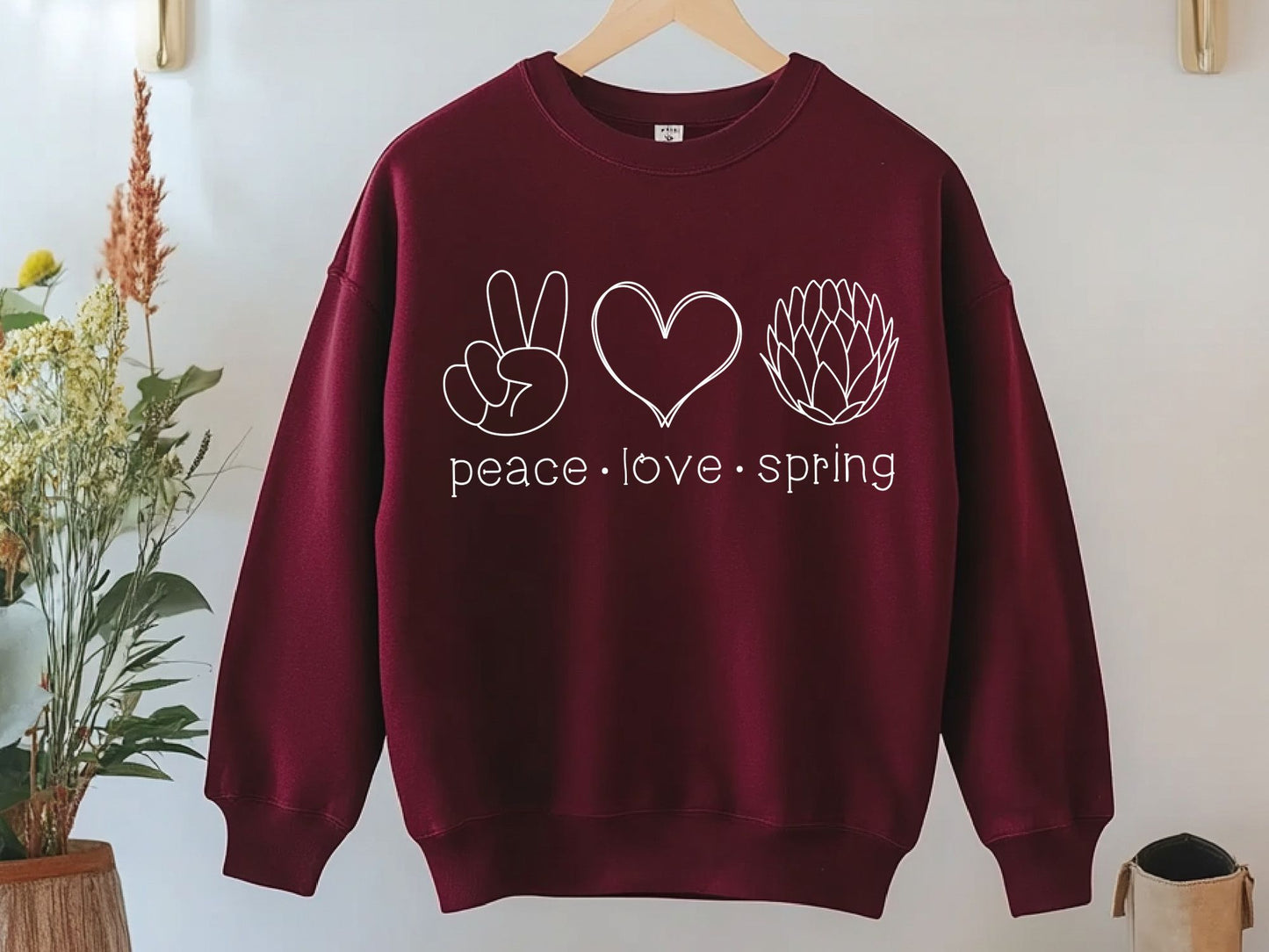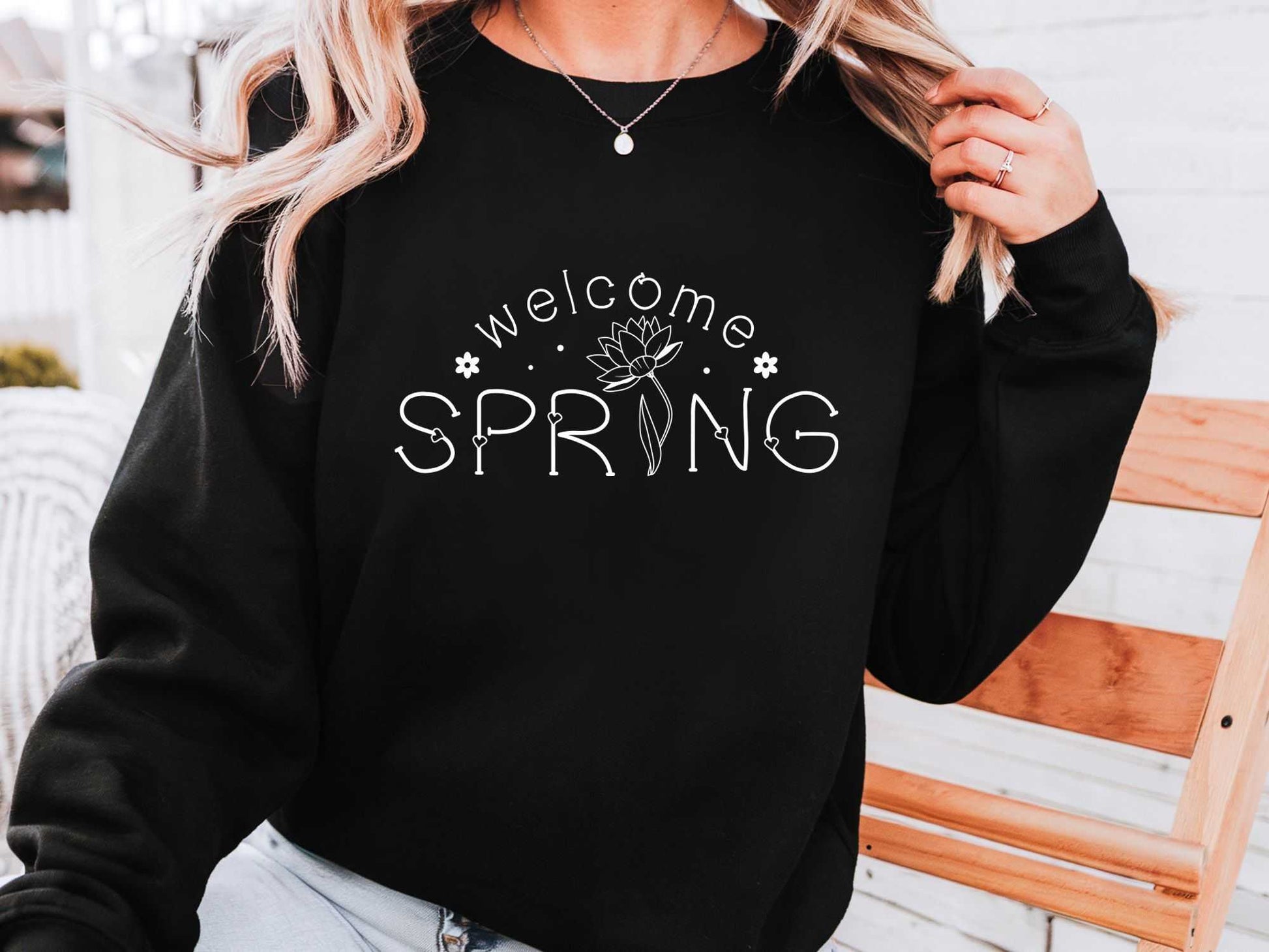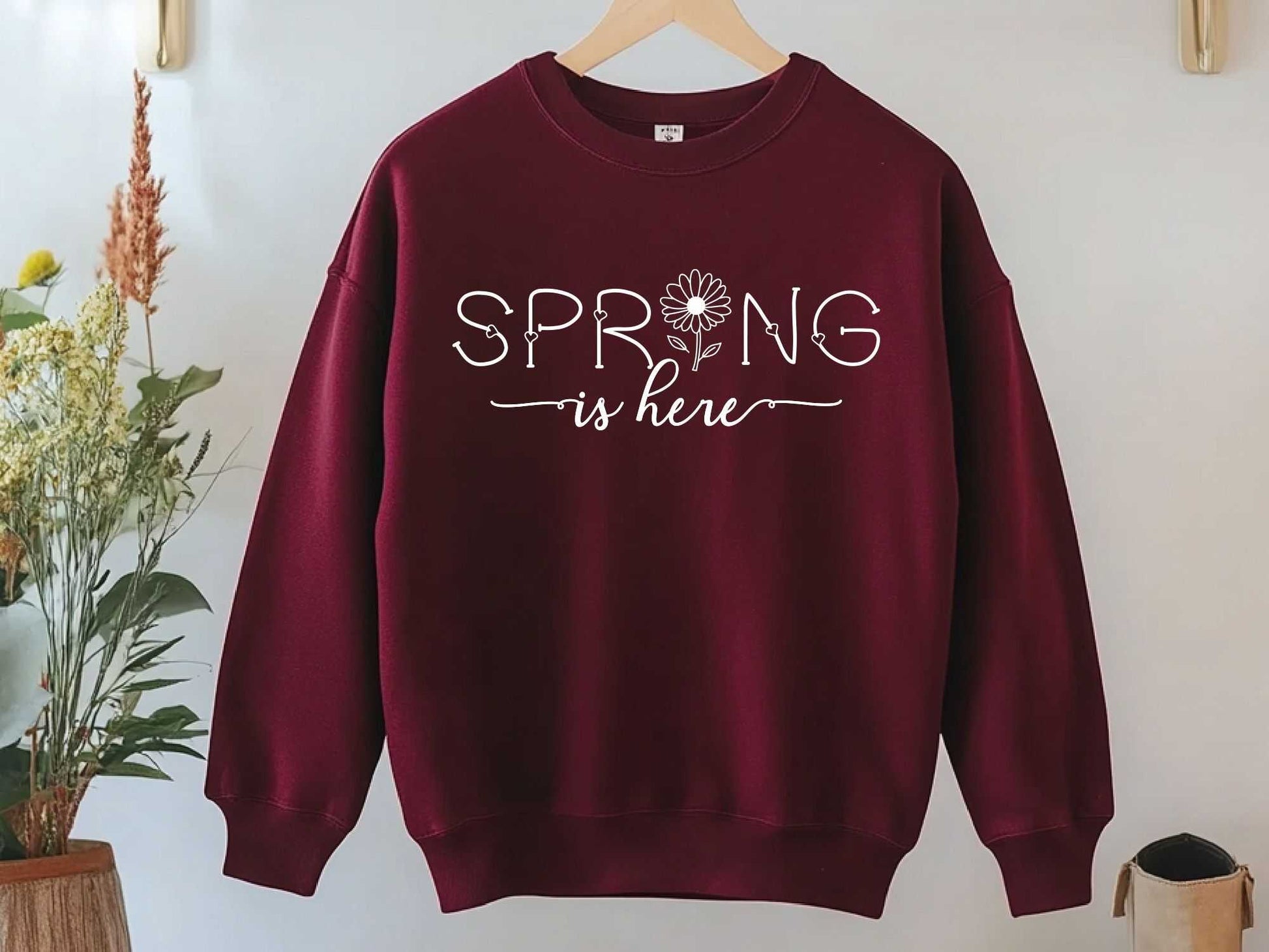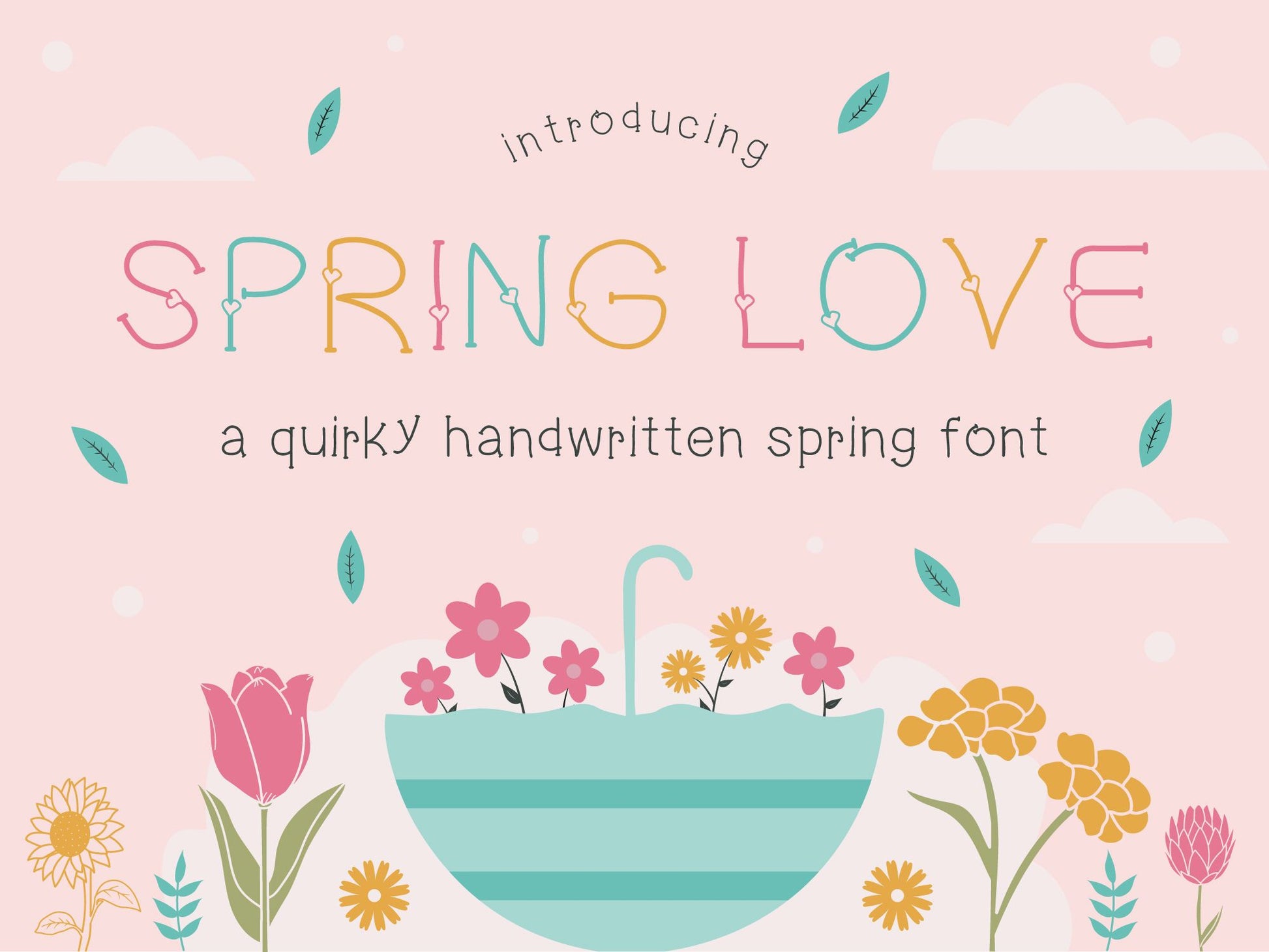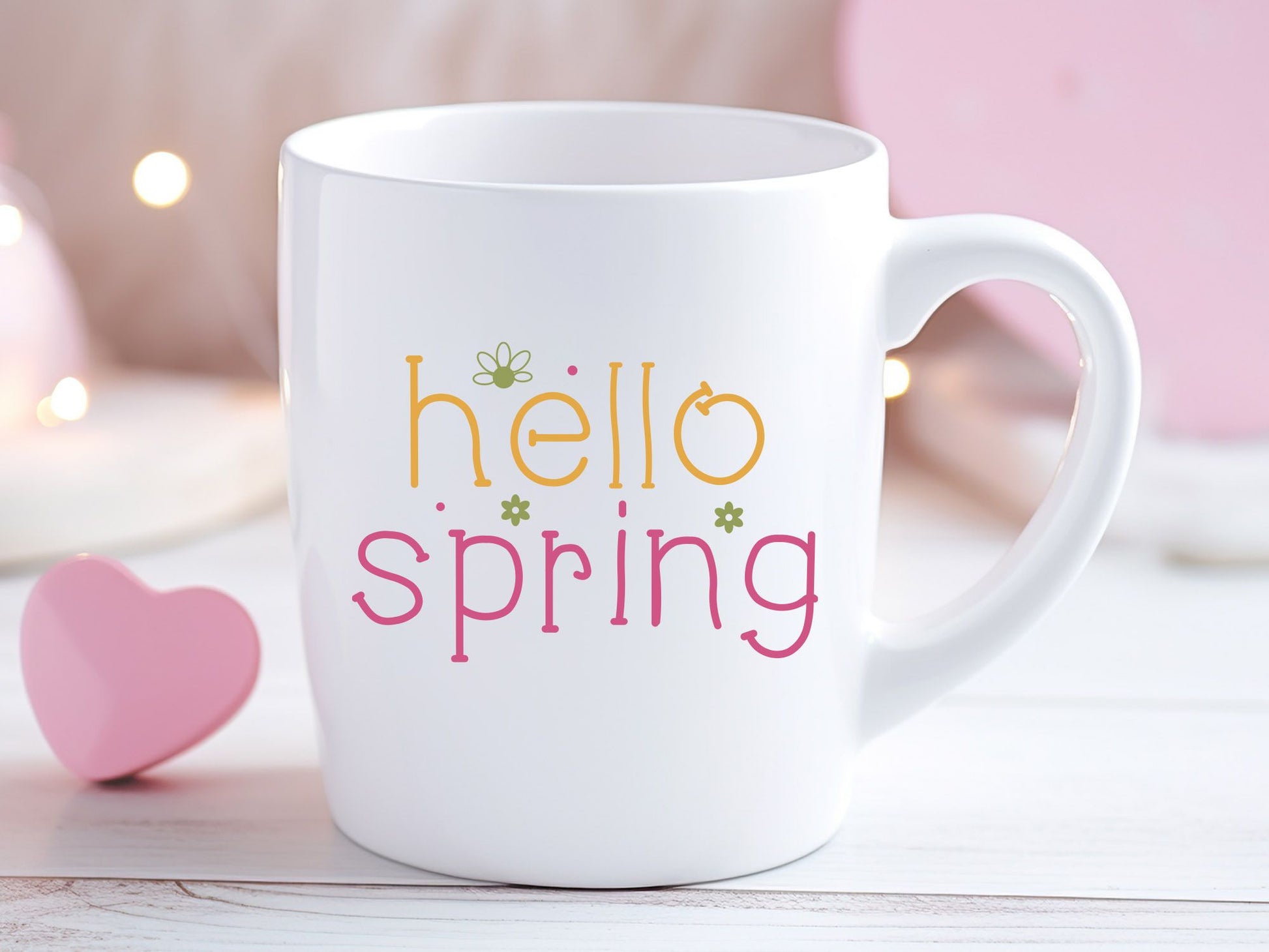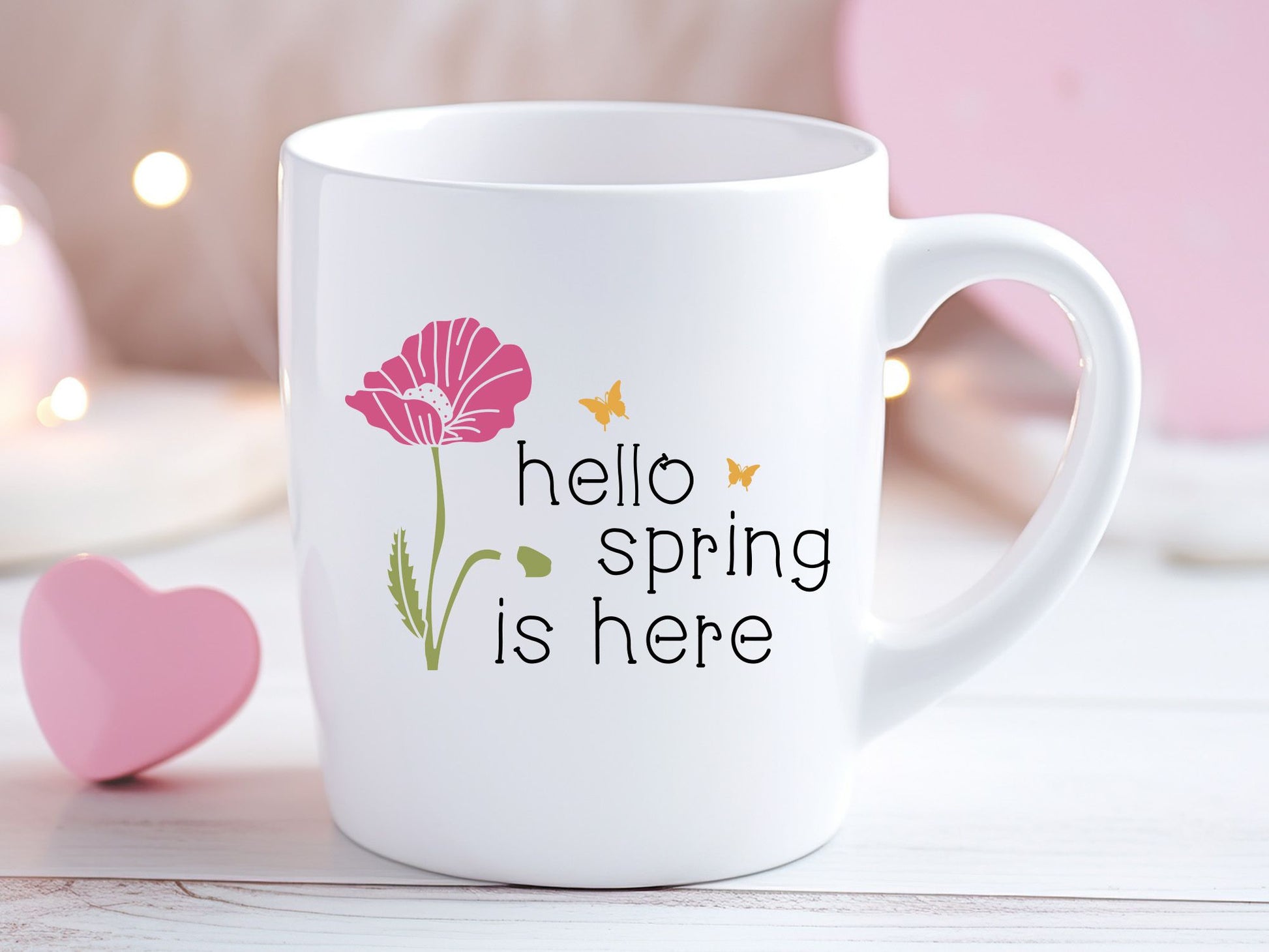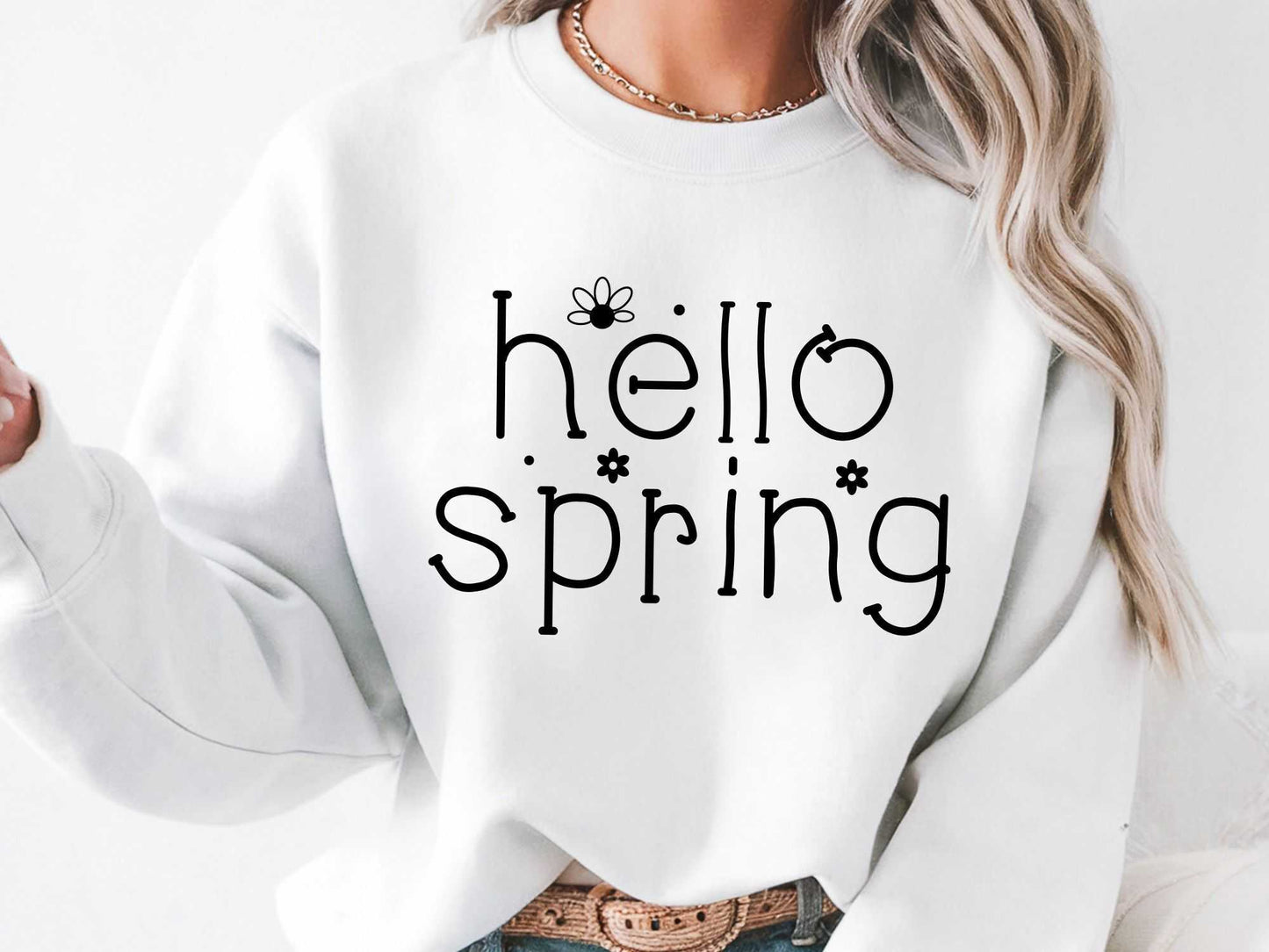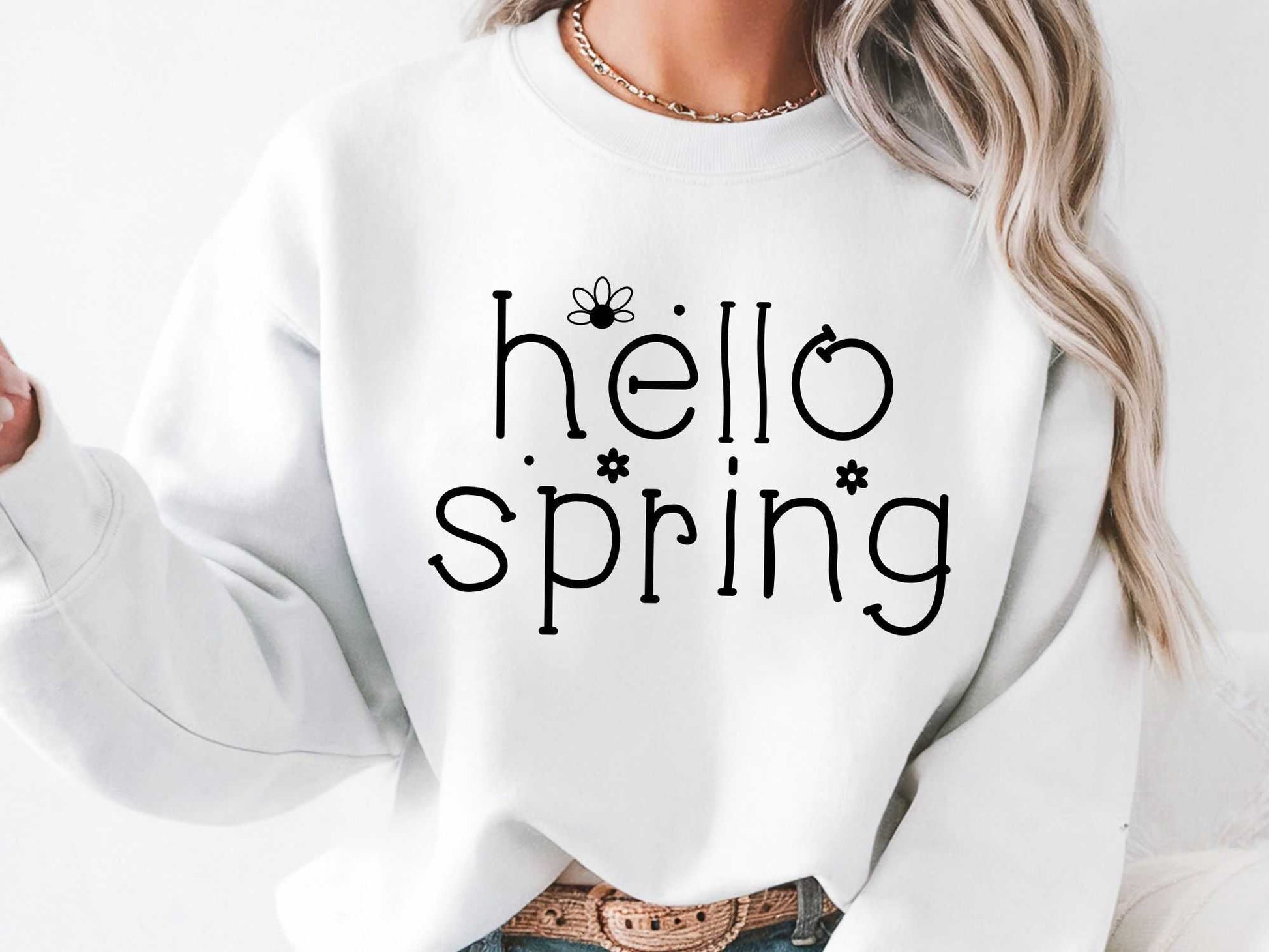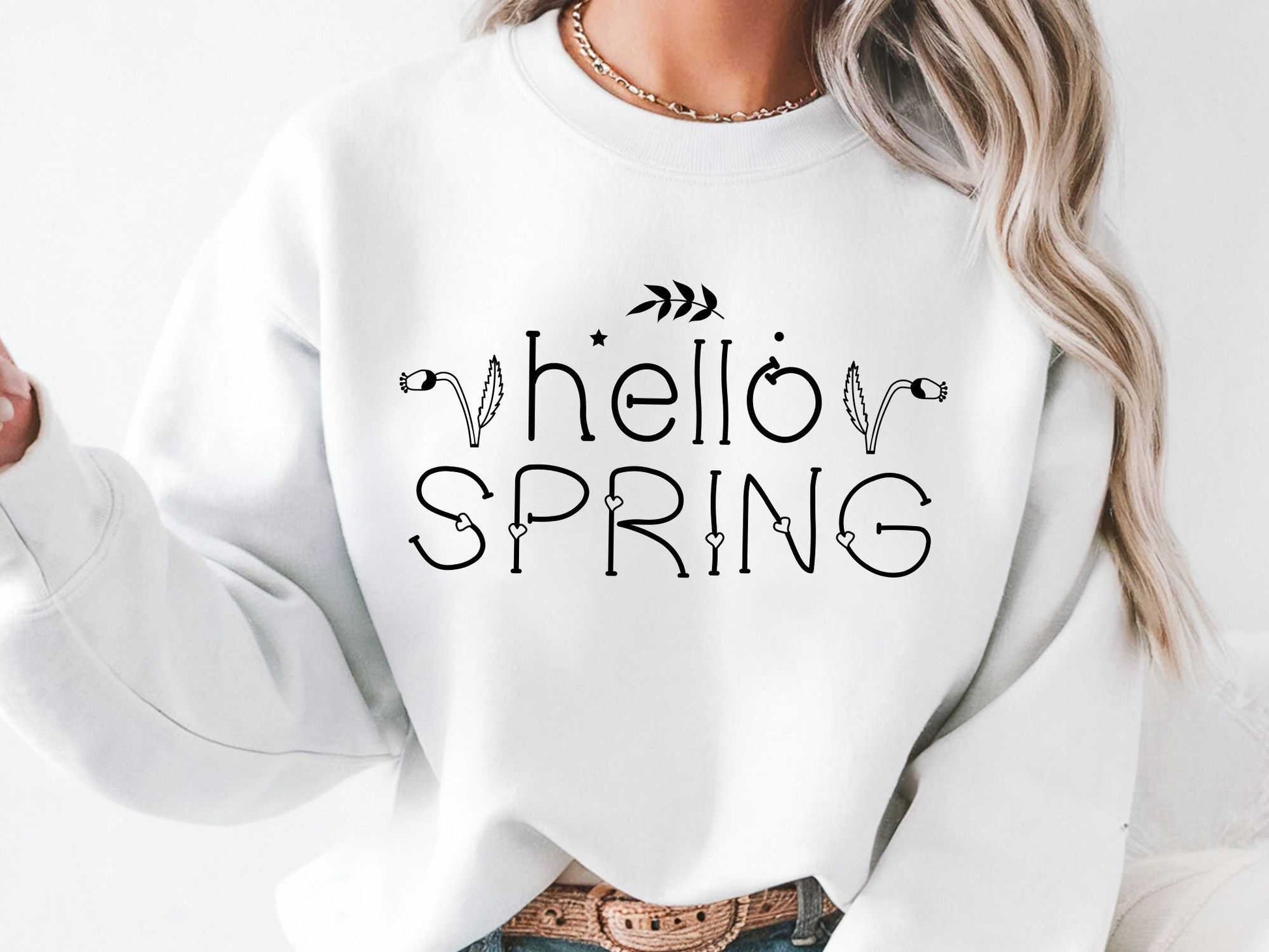
Spring Love - A Quirky Handwritten Font
Download now the free Spring Love – A Quirky Handwritten Spring Font! This playful and unique spring font is just what you need to bring a fresh and vibrant feel to your creative projects. Whether you're designing greeting cards, t-shirts, mugs, tote bags, sweatshirts, social media graphics, logos, or DIY decor, the quirky spring font will make your designs stand out with its handwritten style. Perfect for all your creative projects, this beautiful Spring Love Font design adds a splash of creativity to everything you create. Its playful and expressive strokes make it a fantastic choice for seasonal projects, wedding invitations, and delightful printables. Plus, the cute spring handwritten font is available in TTF and OTF formats, so it's super versatile and easy to use with a variety of software and platforms such as Cricut, Silhouette, Canva, Photoshop, Illustrator, and so much more!